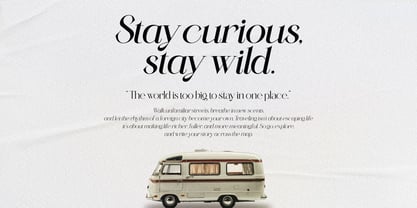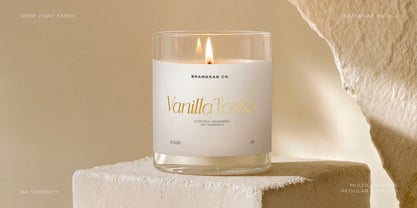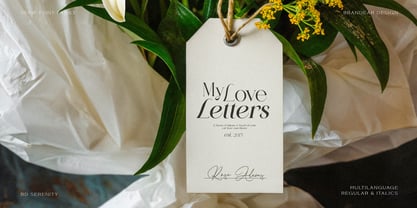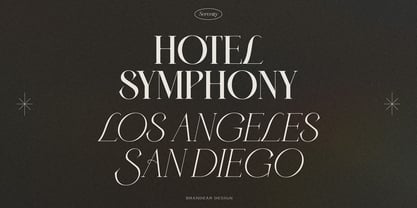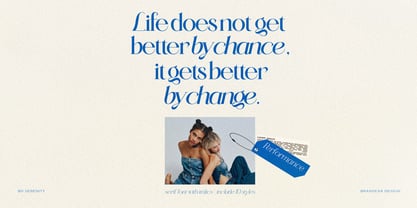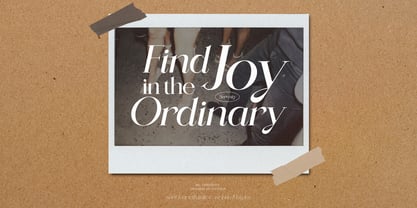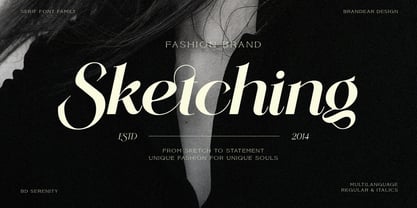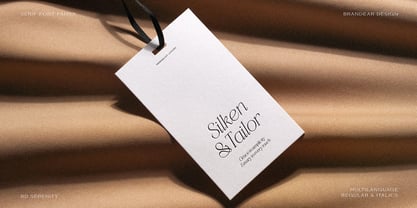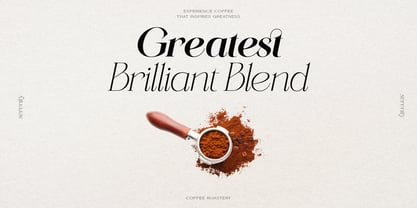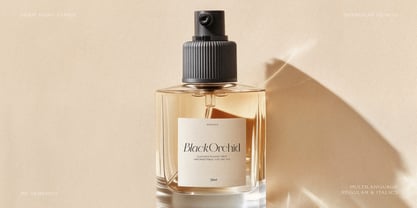
BD Serenity
by Brandear Design
The BD Serenity Font Family was designed by Jibin Kim and published by Brandear Design. BD Serenity contains 10 styles and family package options.
Say hello to BD Serenity!
This serif font is designed with a sense of calm and elegance in mind. Available in both regular and italic styles, it offers five distinct weights, making it versatile for a range of design projects.
BD Serenity features smooth curves and graceful lines, suitable for both headlines and body text. With ten unique styles, it's easy to mix and match to create engaging typographic compositions.
Whether you're working on a magazine layout, a logo design, or a poster, Serenity aims to bring a touch of refinement to your projects. It’s designed to inspire clarity and coherence while being a helpful addition to your creative toolkit.
For optimal legibility, feel free to adjust letter spacing based on your needs: tightening it for impactful titles and loosening it slightly for comfortable reading in body text. I hope you enjoy exploring the possibilities with BD Serenity!✨
Designers: Jibin Kim
Publisher: Brandear Design
Foundry: Brandear Design
Design Owner: Brandear Design